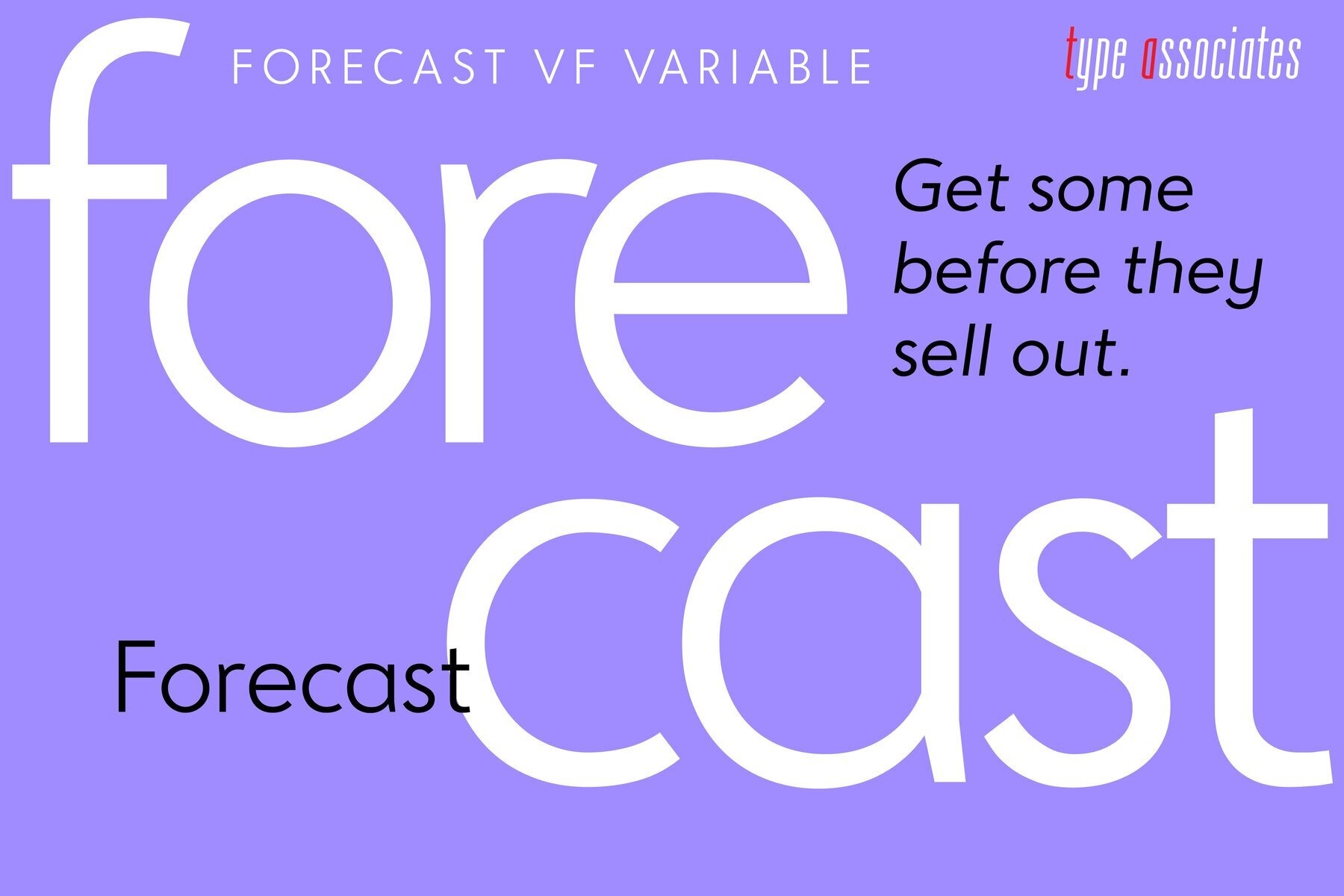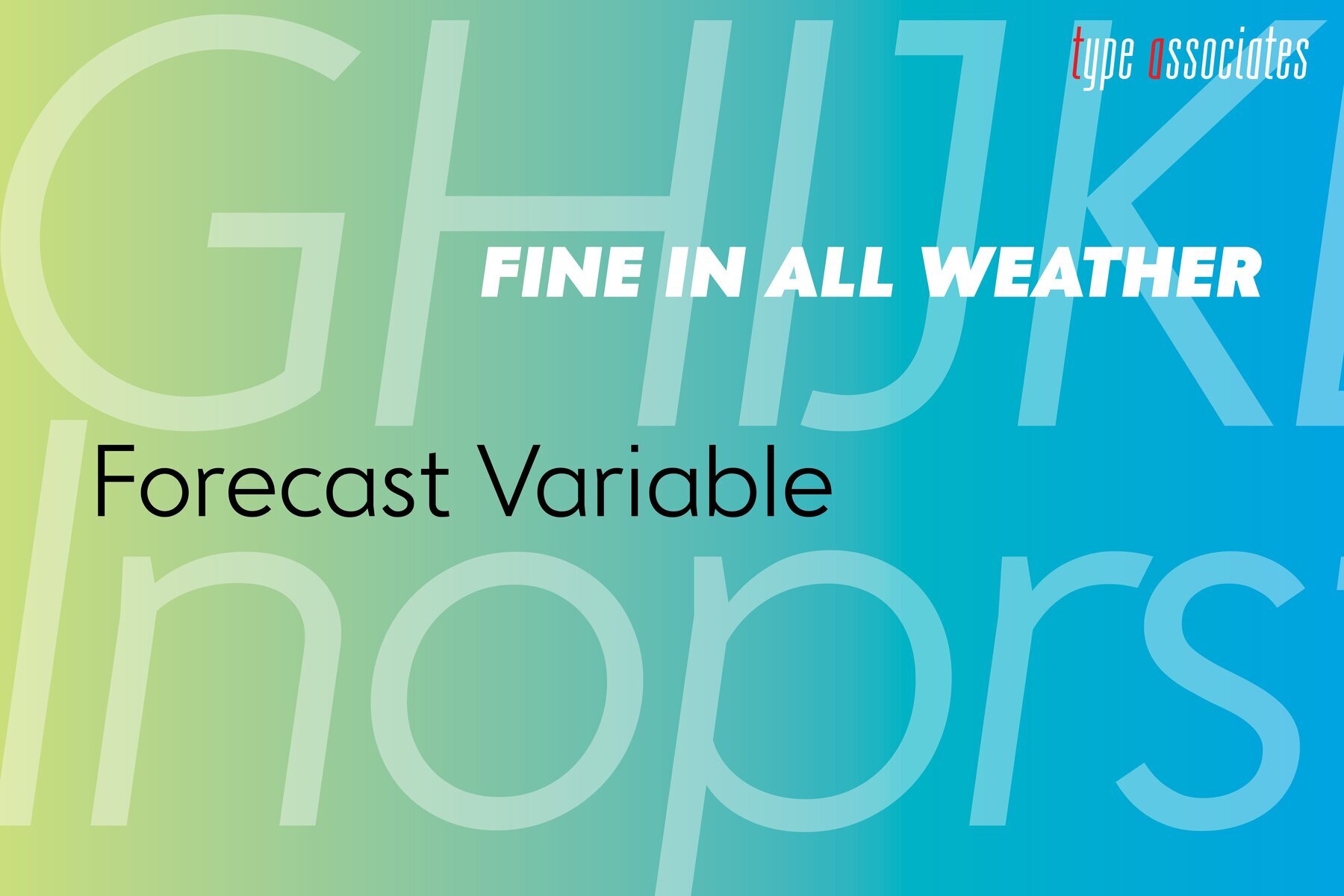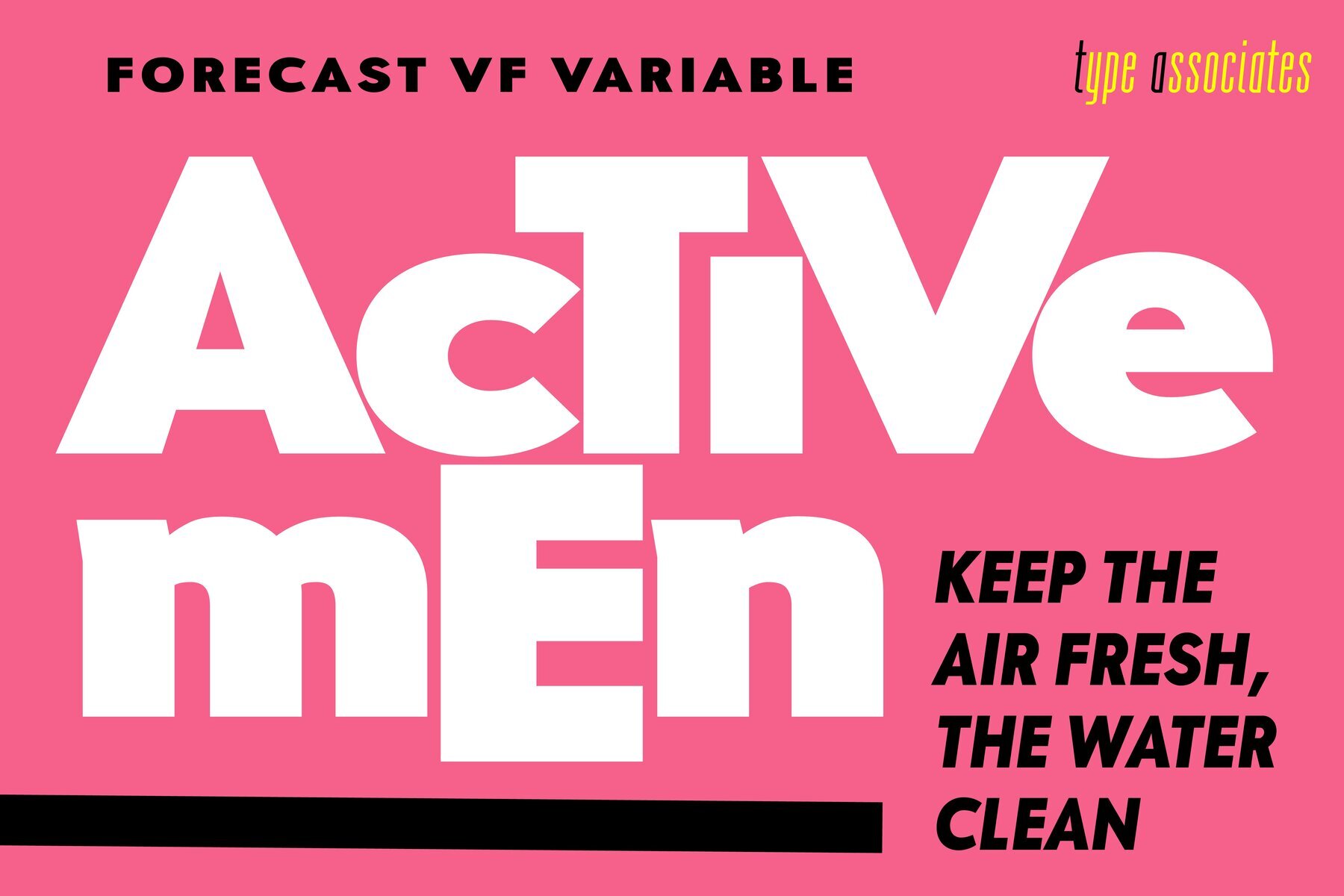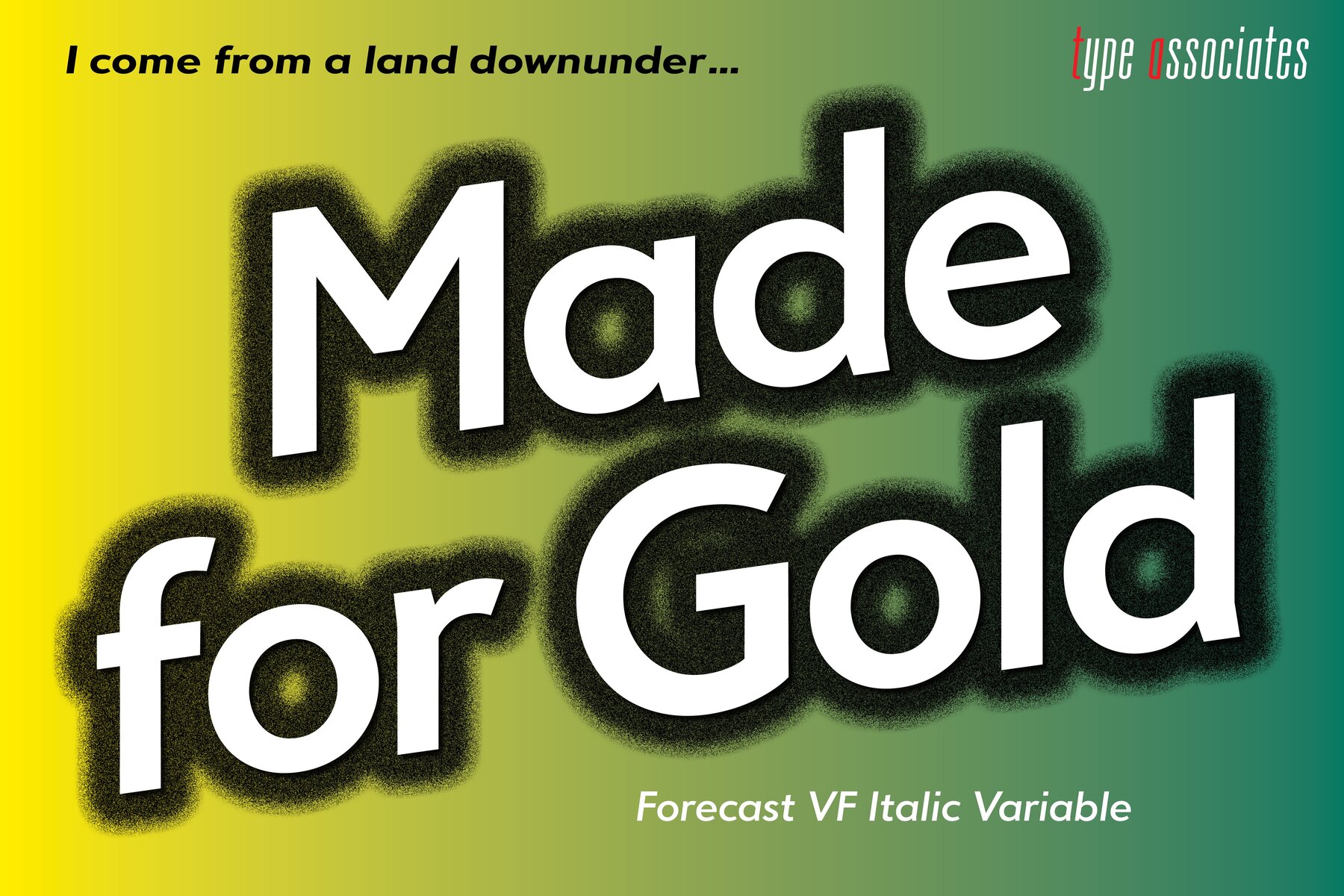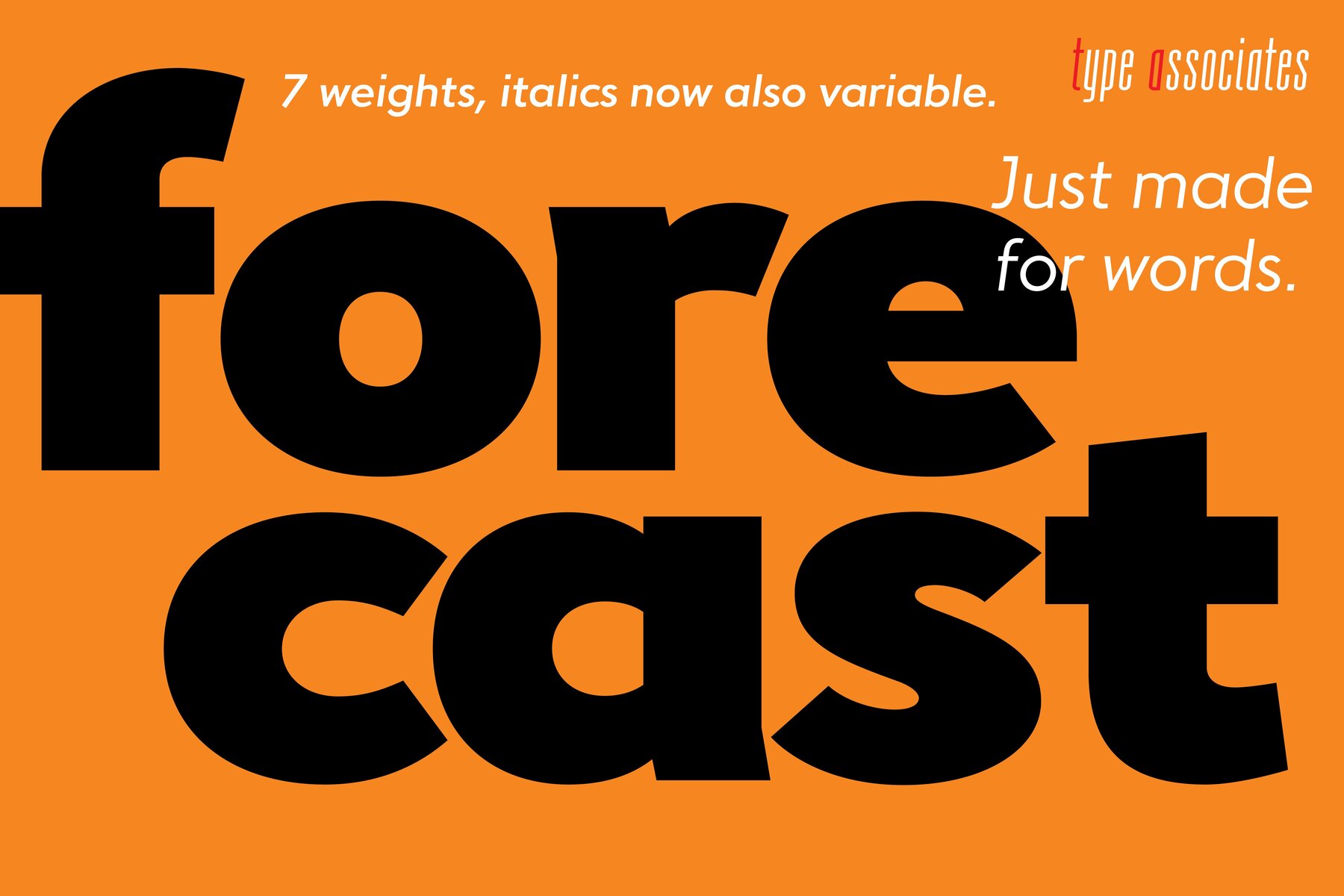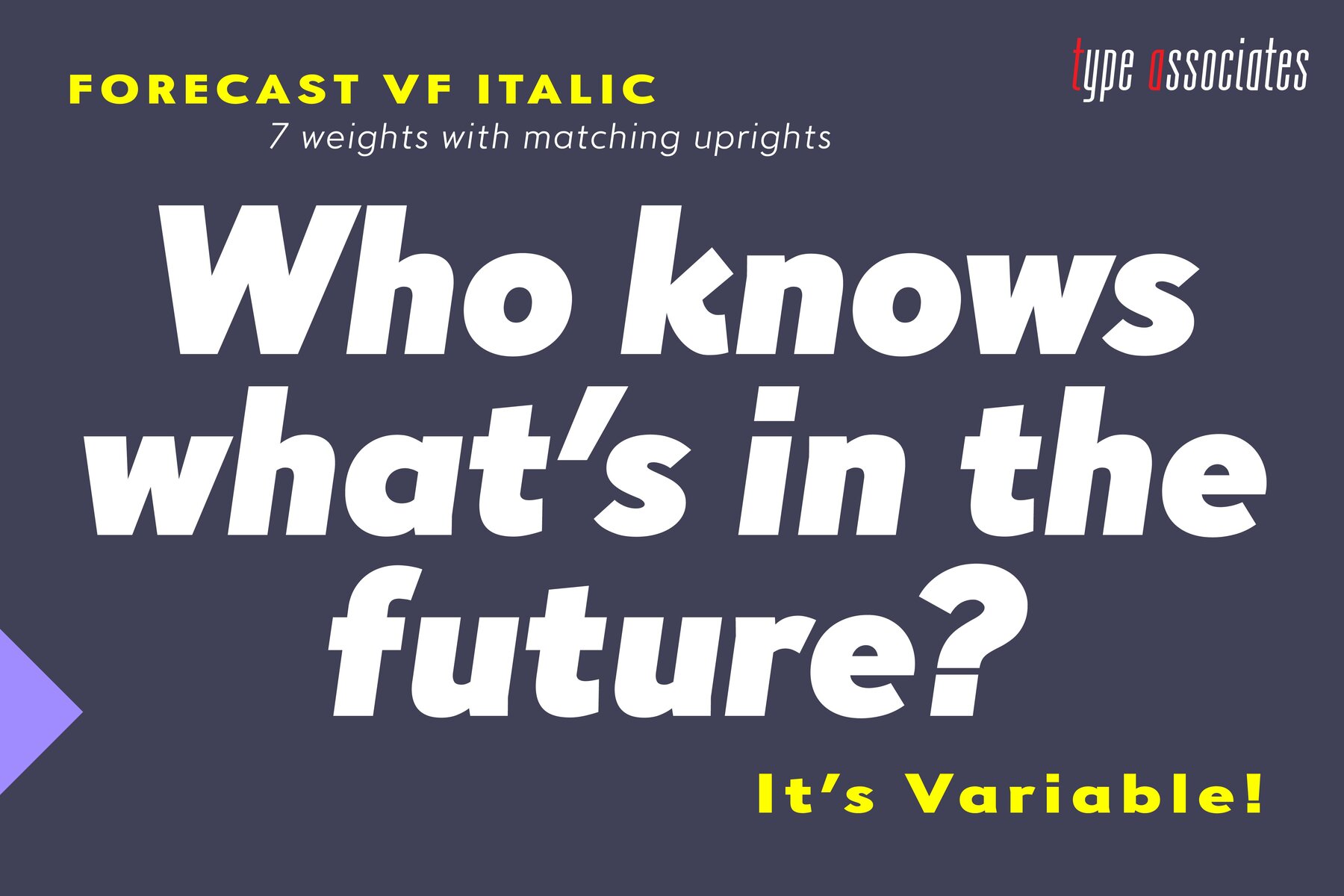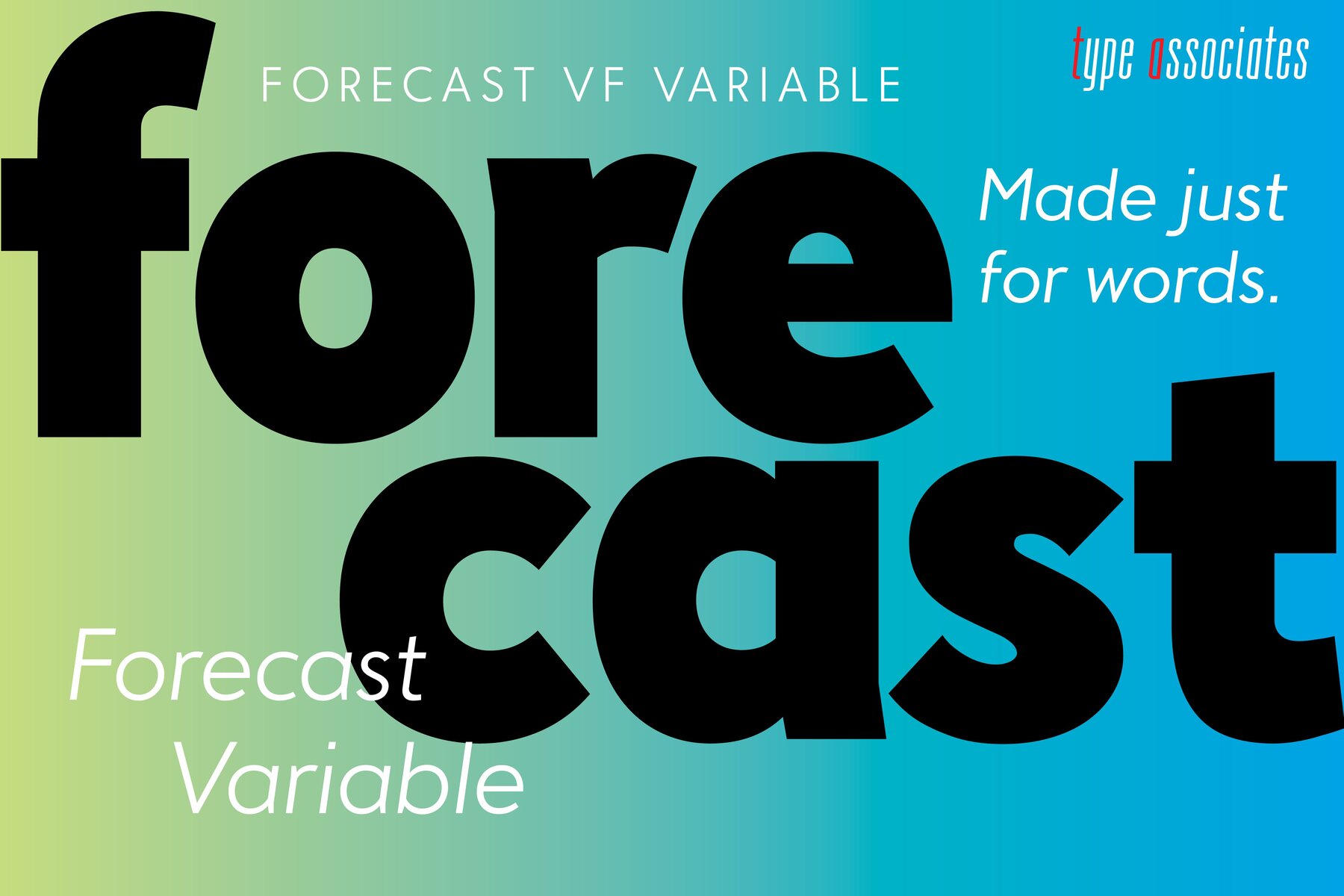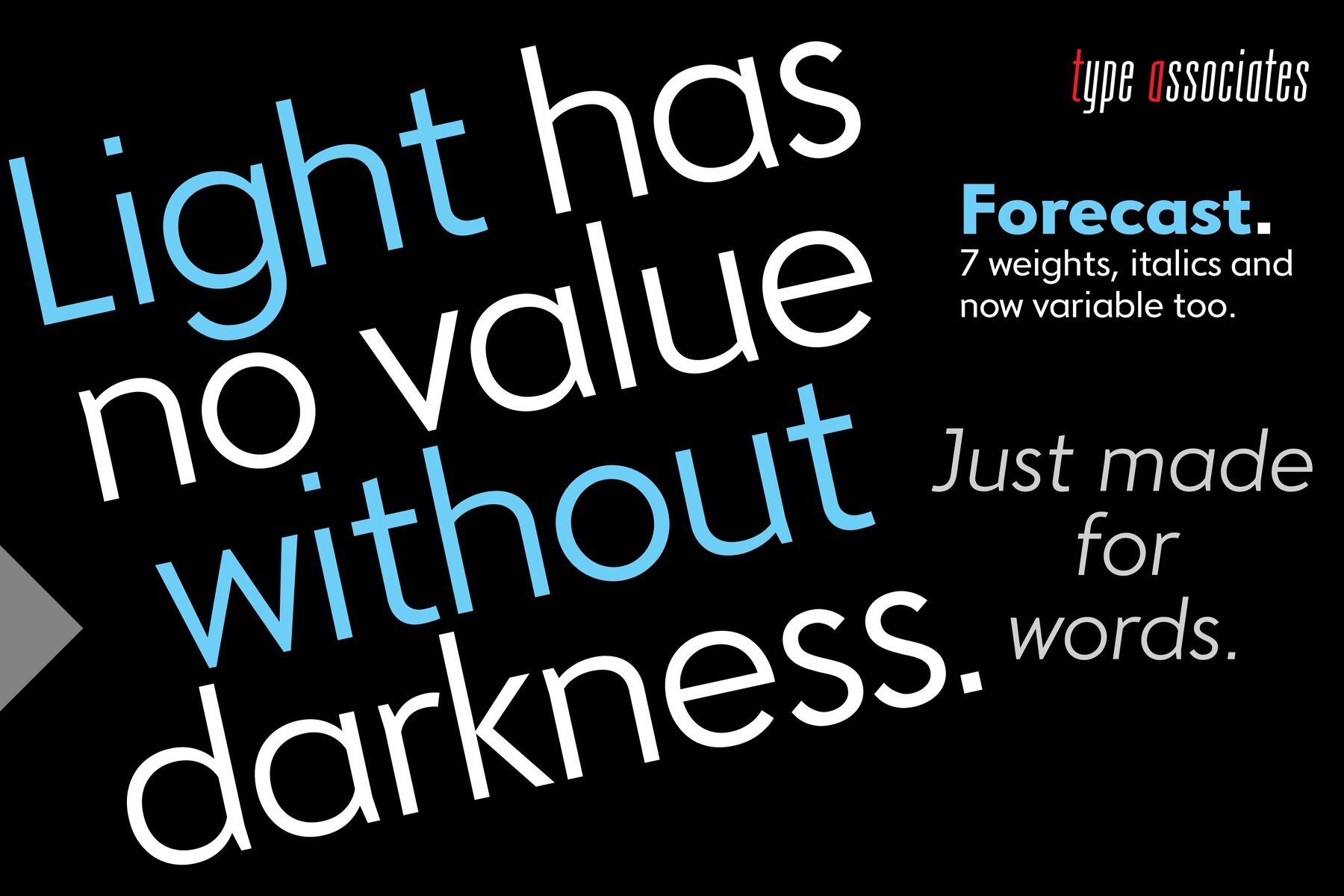
Forecast VF Font
Forecast Variable VF and Forecast Variable Italic VF are variable font editions of our recently released Forecast family. These variable fonts are the equivalent of all the “static” fonts in the Forecast family plus condensed and extended proportions as well. Font settings are infinitely adjustable in your desktop app to provide you with an instance in the design space anywhere between the condensed, normal and extended proportions whilst selecting a style anywhere between the Light and Black weights. For example: Bold Semi Condensed or Extra Bold Extended.